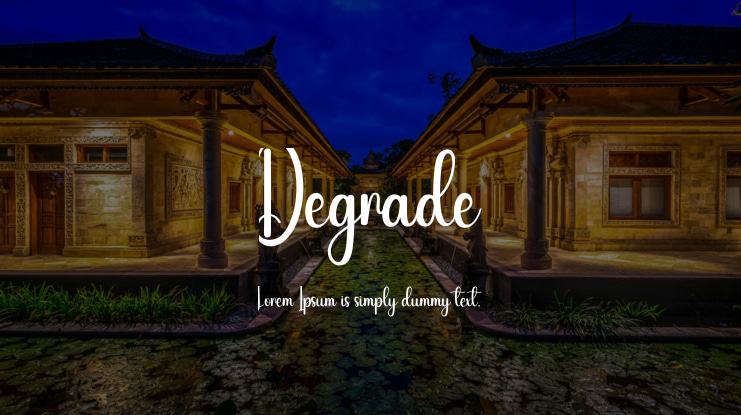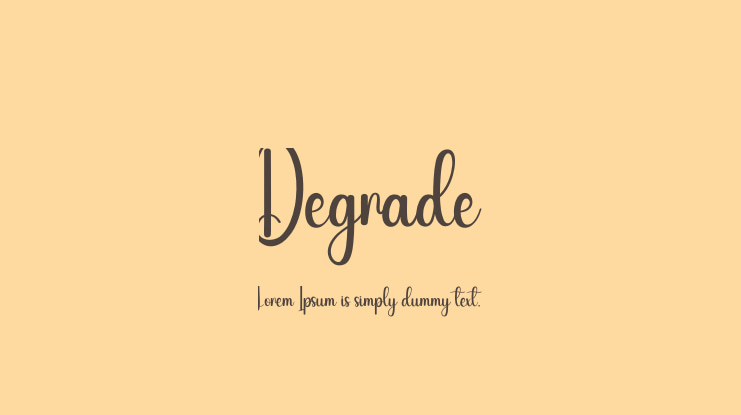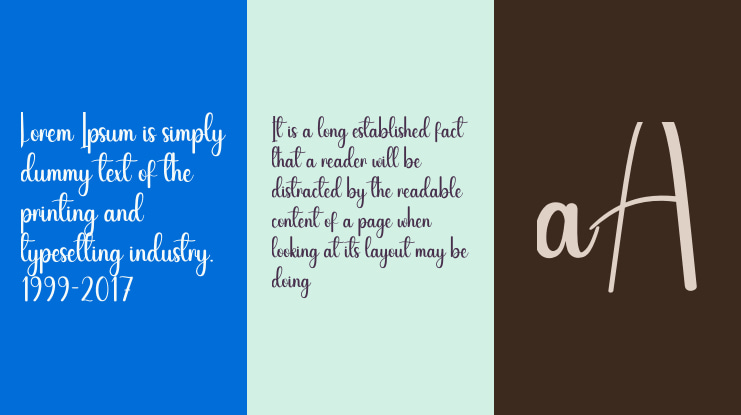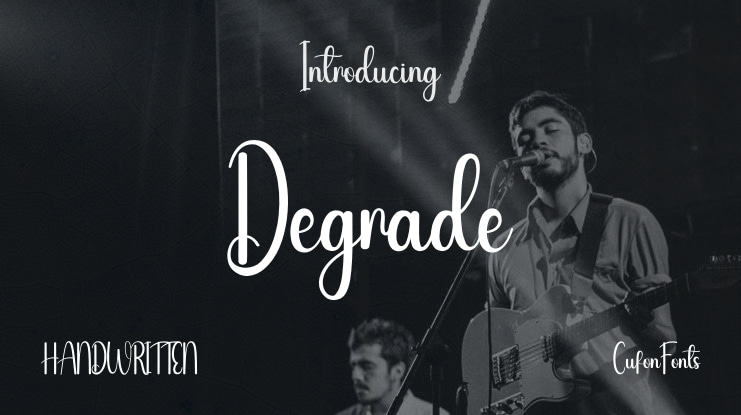
Degrade Font
This charming, handwritten display font is both sweet and friendly. Its playful nature makes it perfect for creating wedding invitations, cards, or any design that needs a whimsical touch! For commercial purchases, please visit our website at https://scratchones.com/. If you have any questions or need custom font services such as adding font glyphs or editing fonts for commercial use, please contact us at . Thank you!